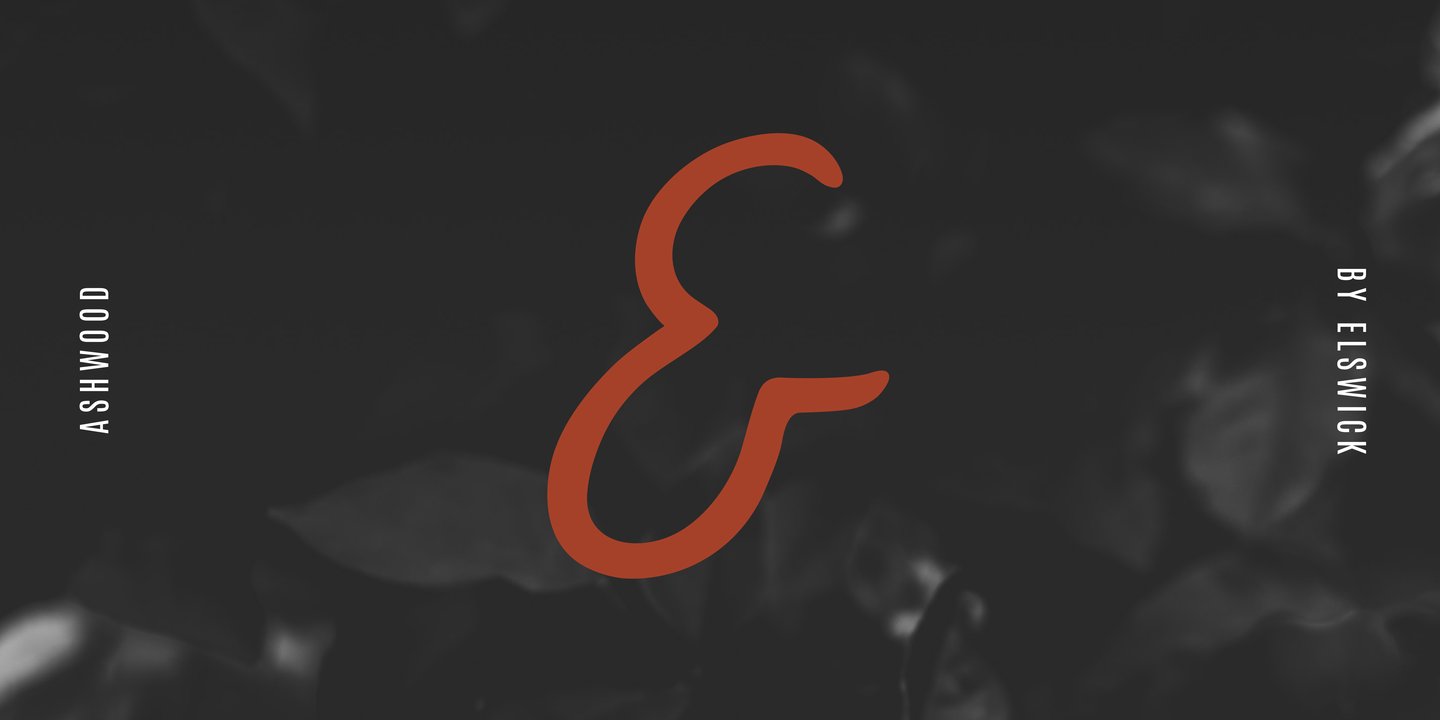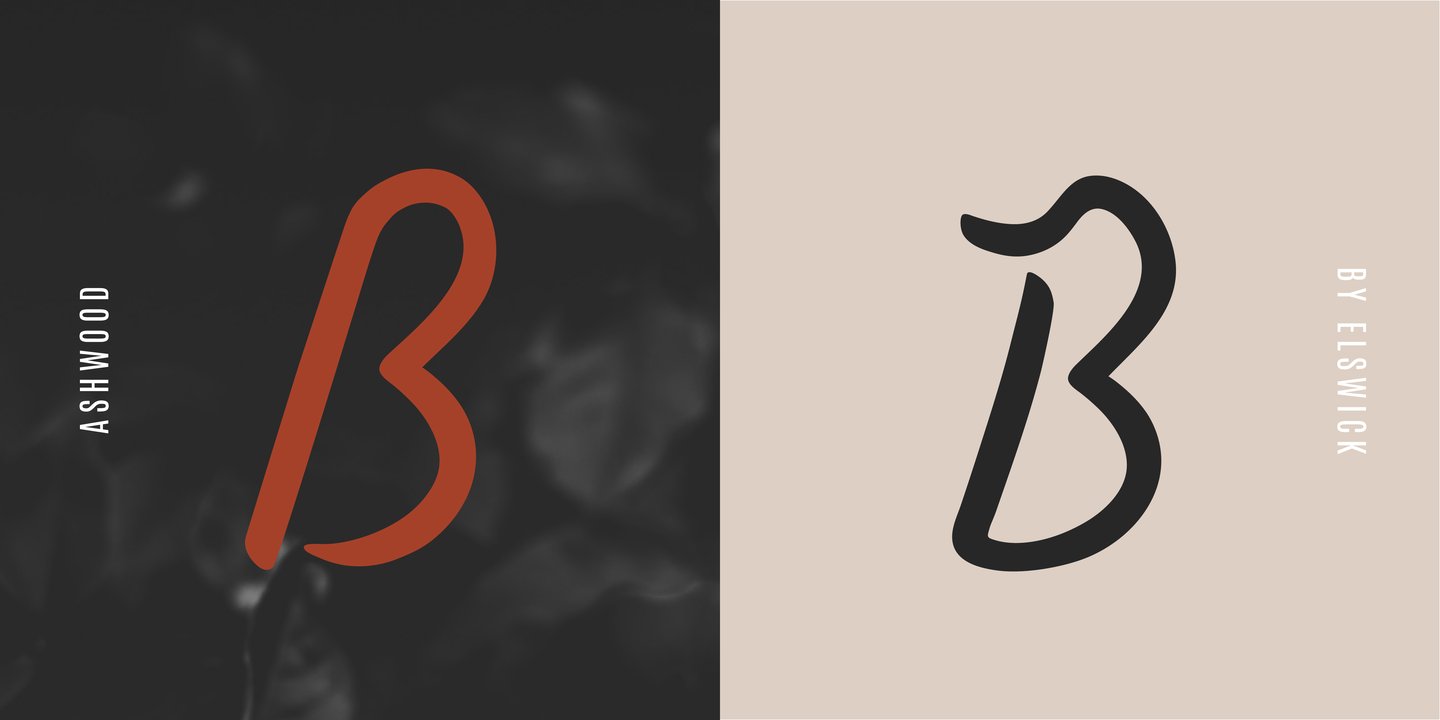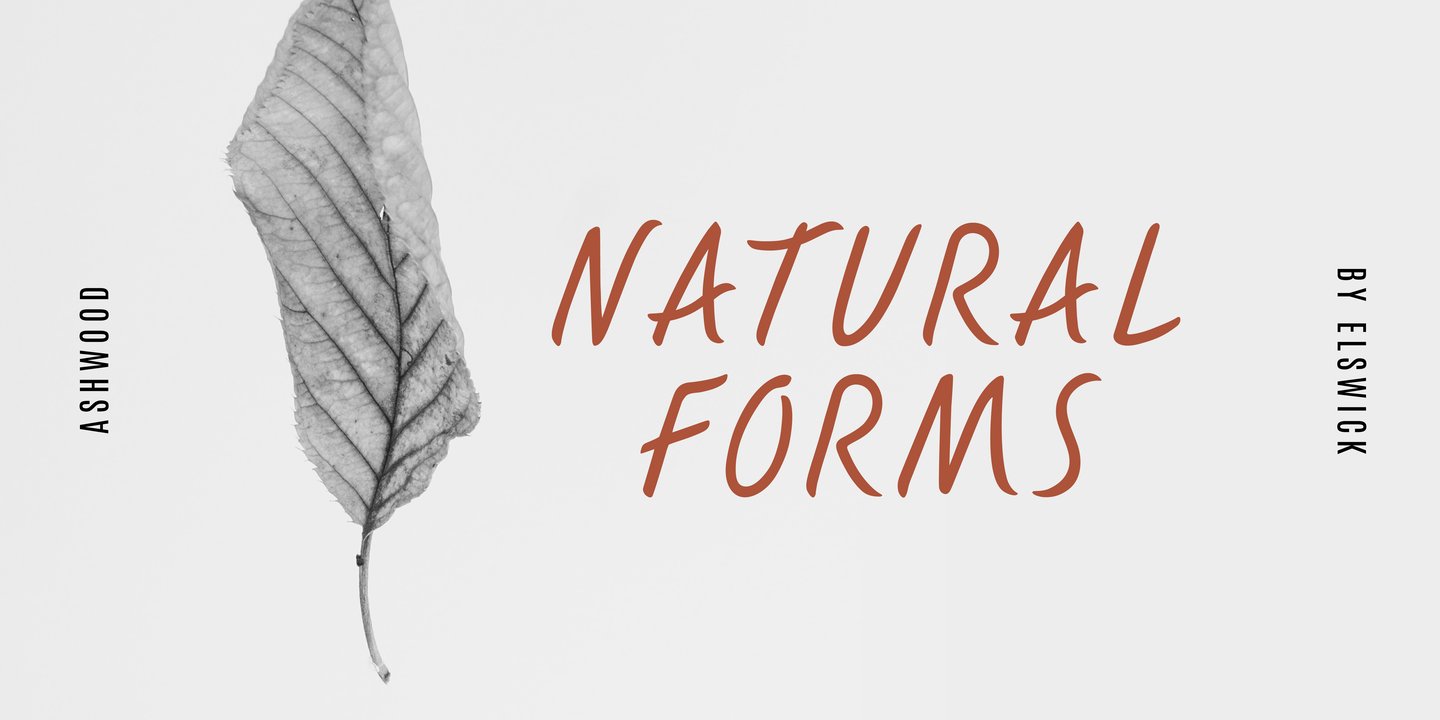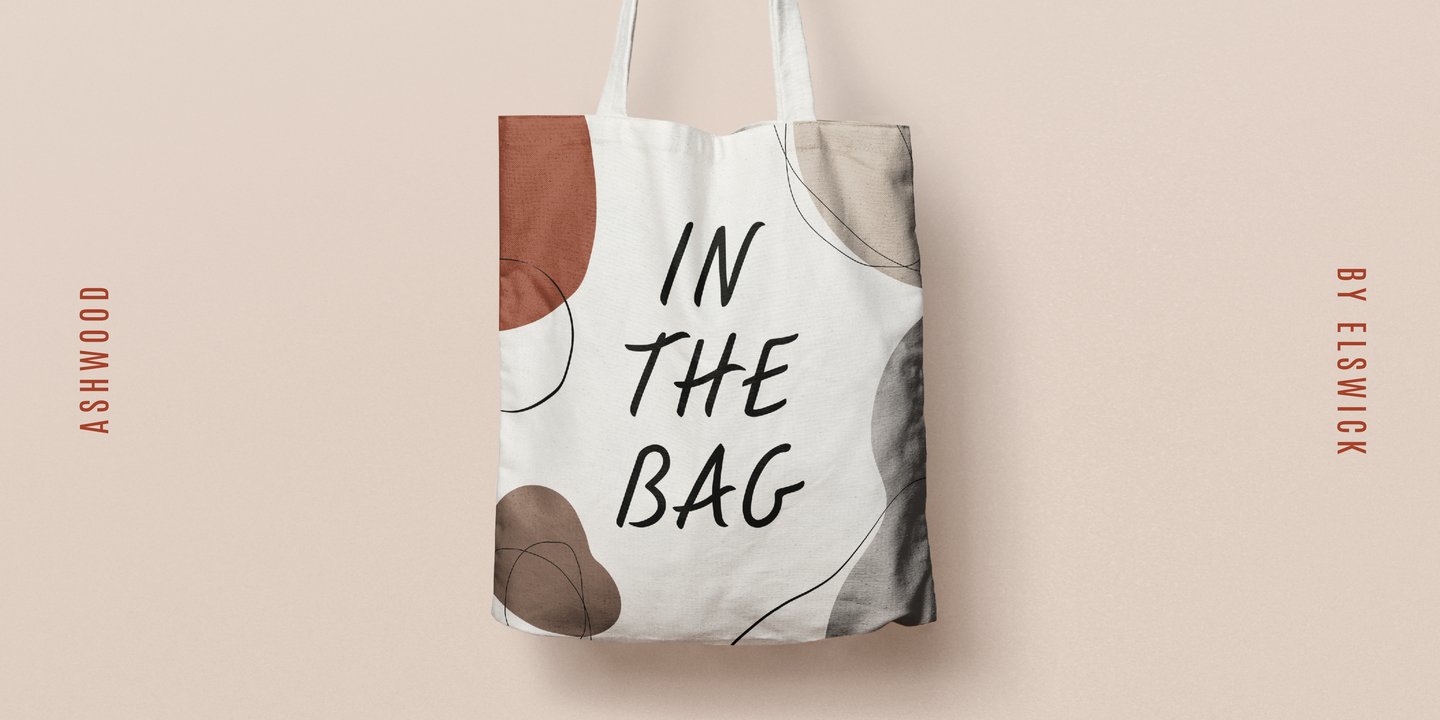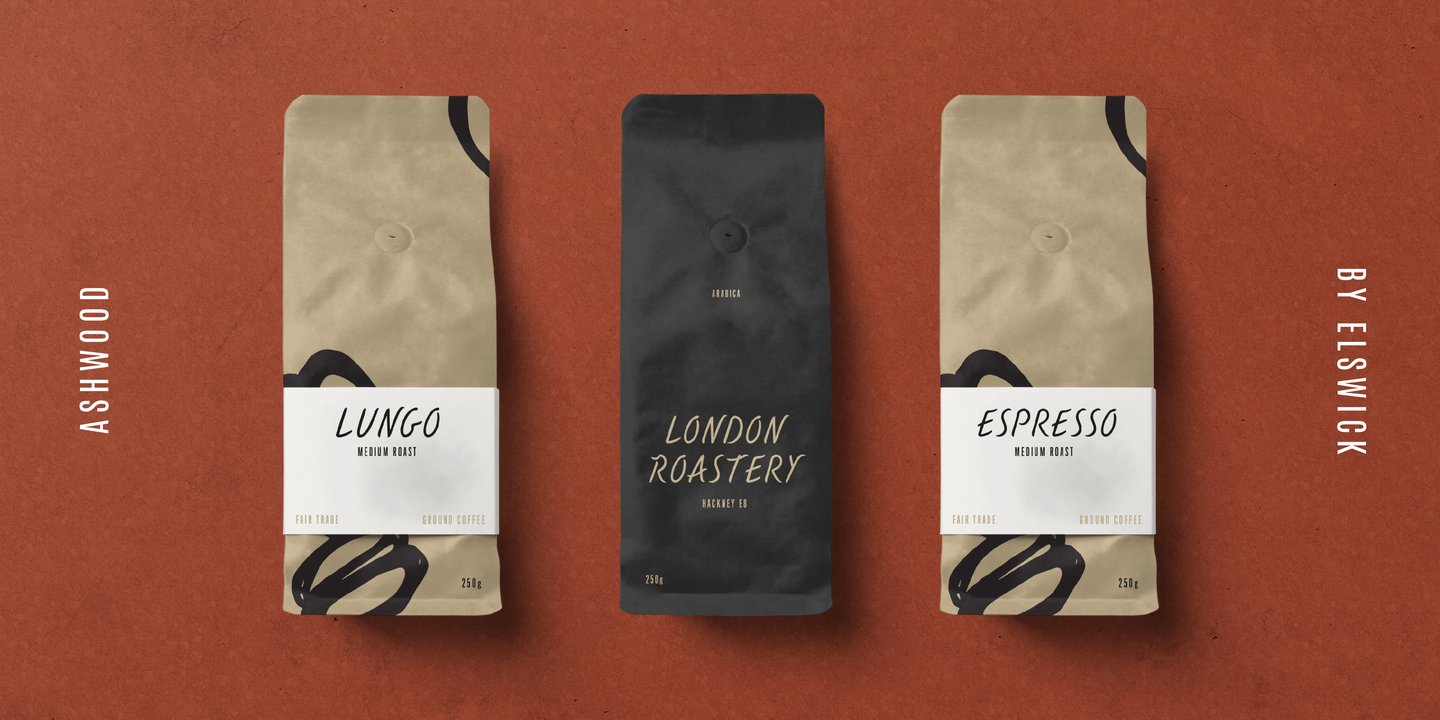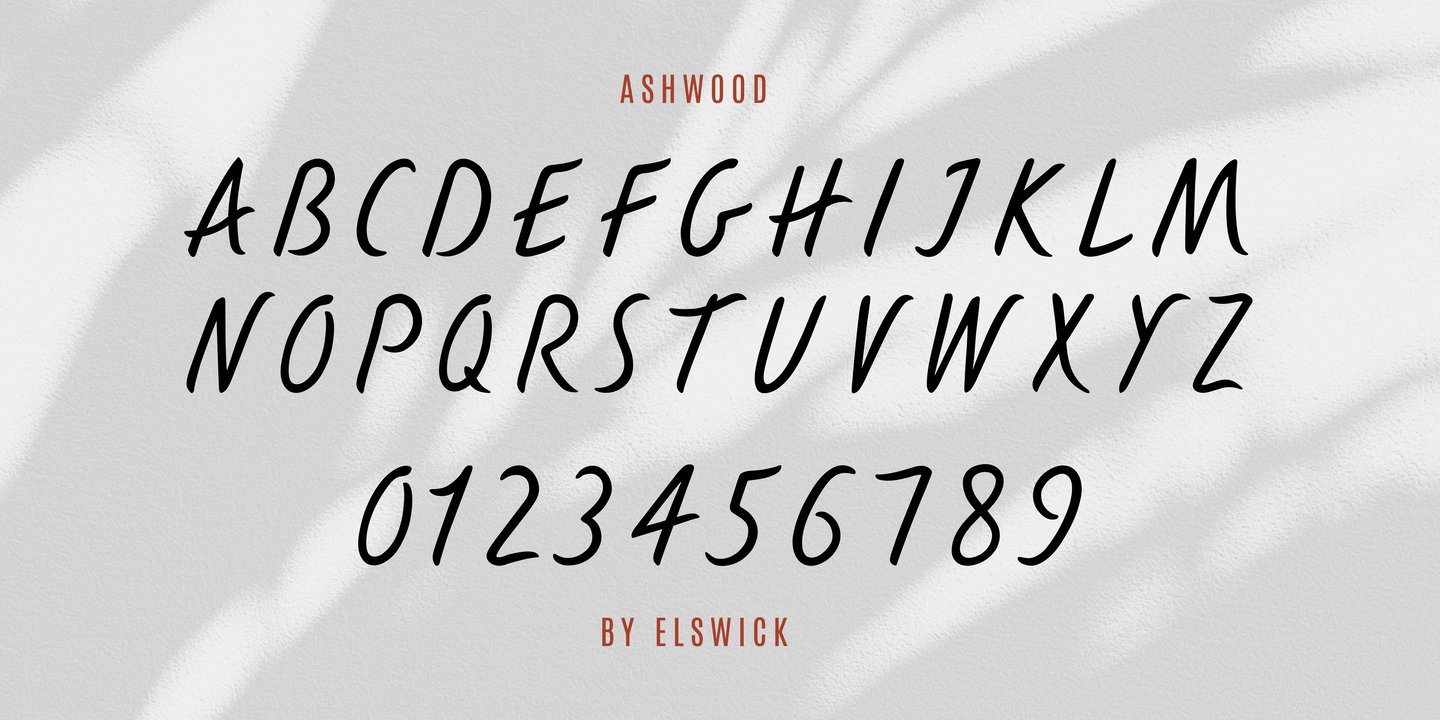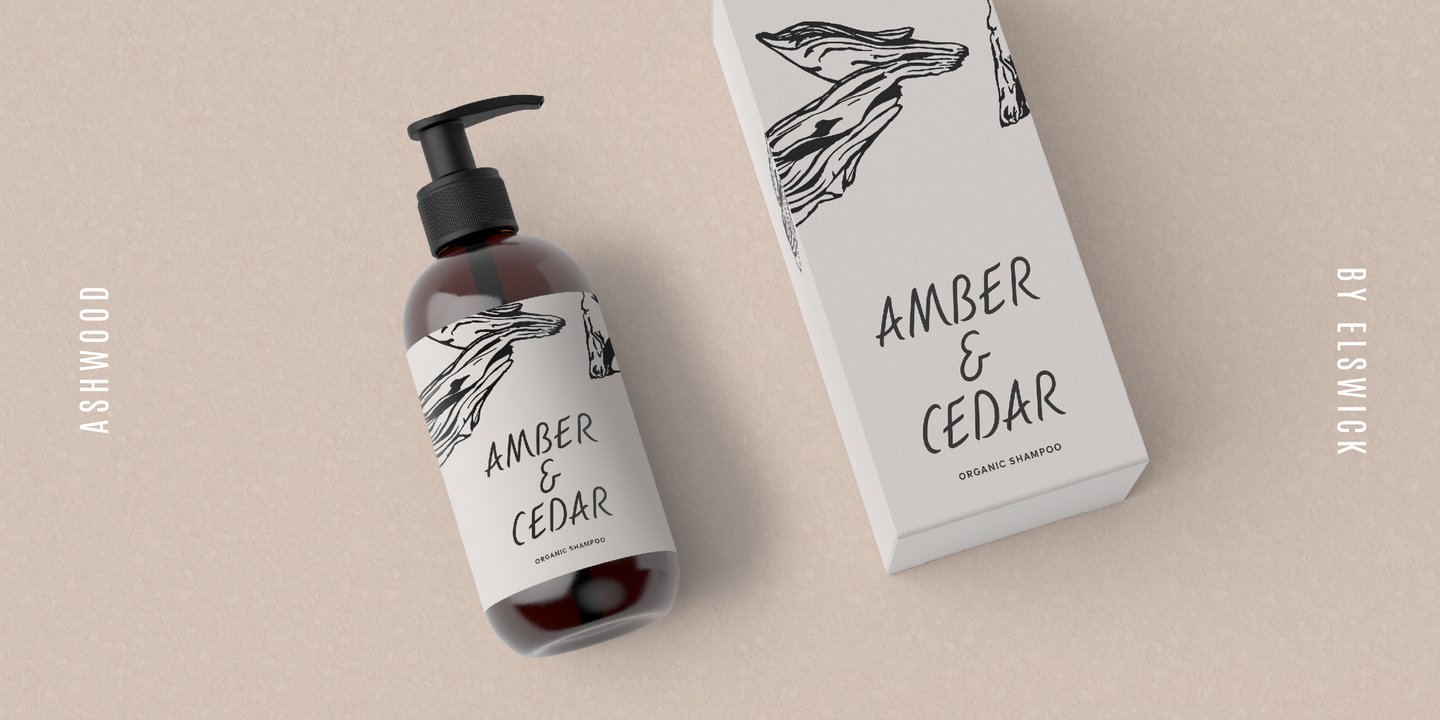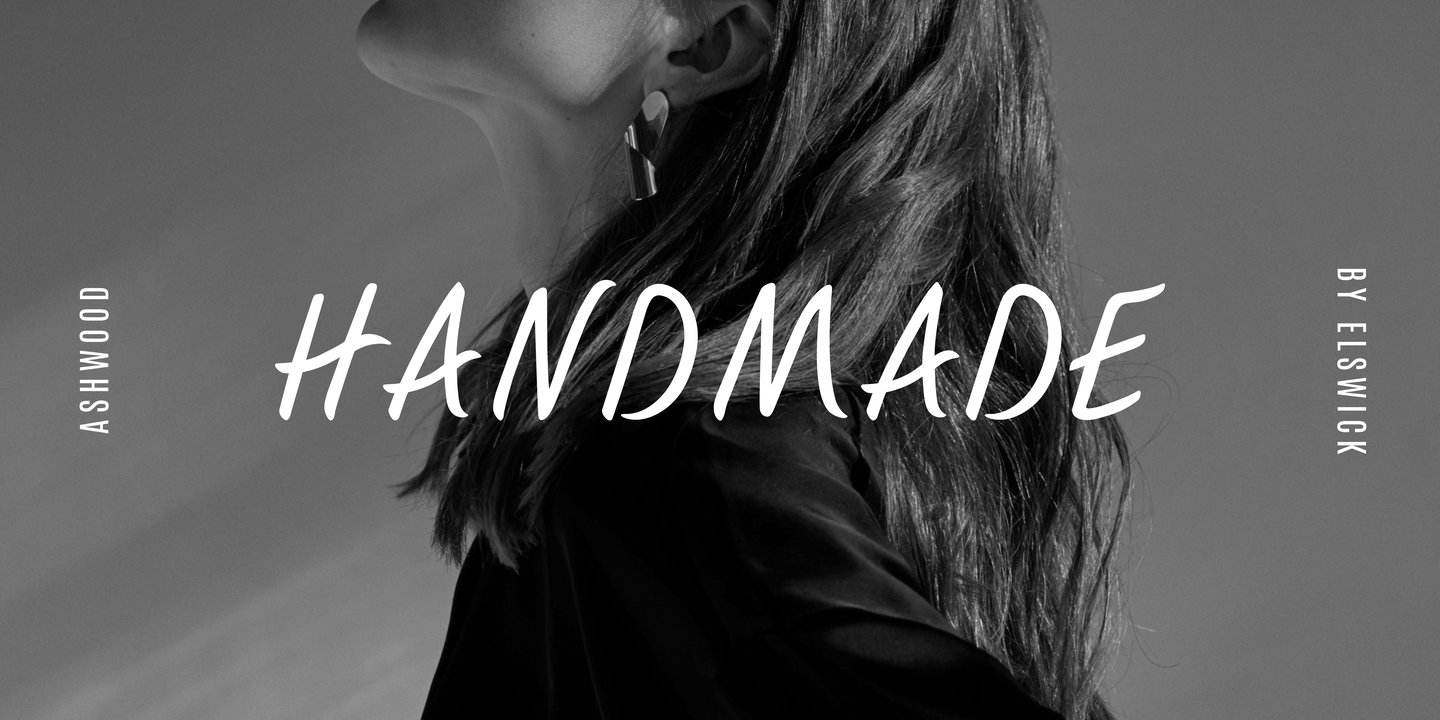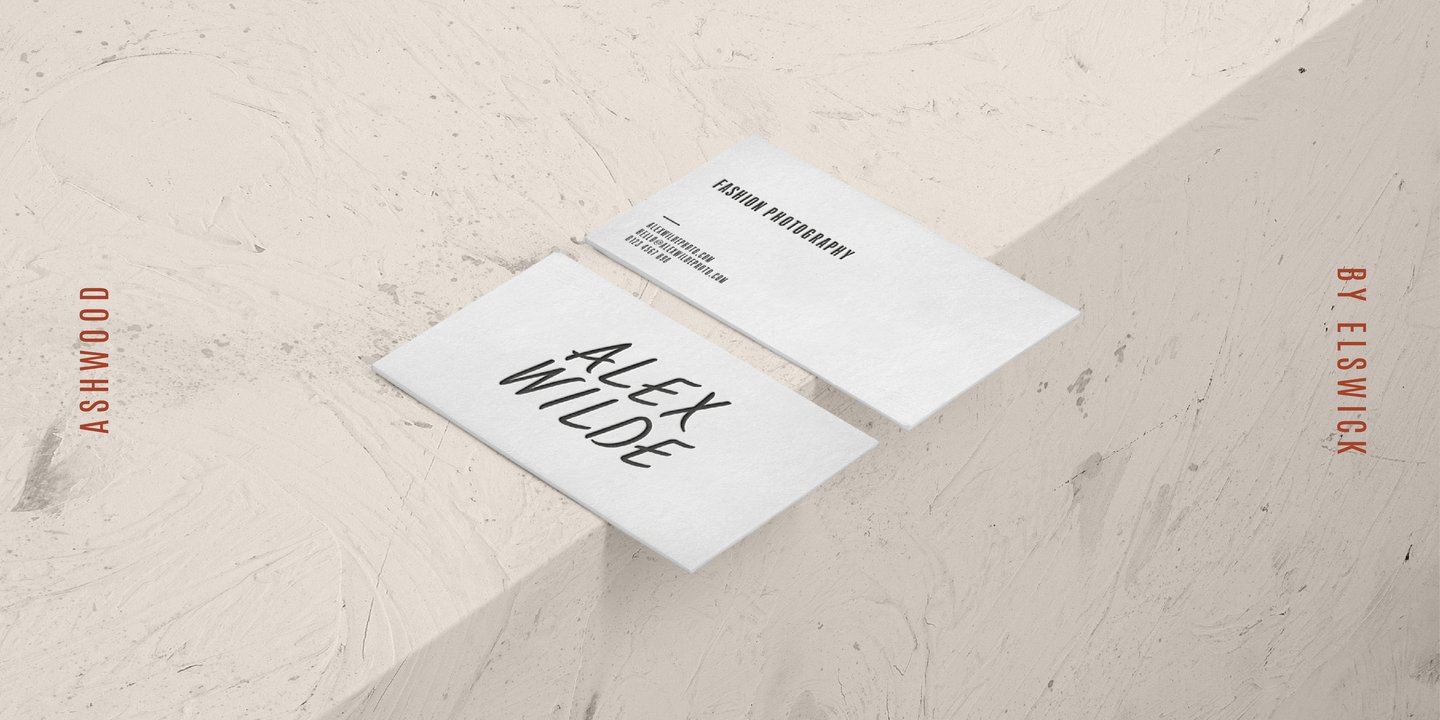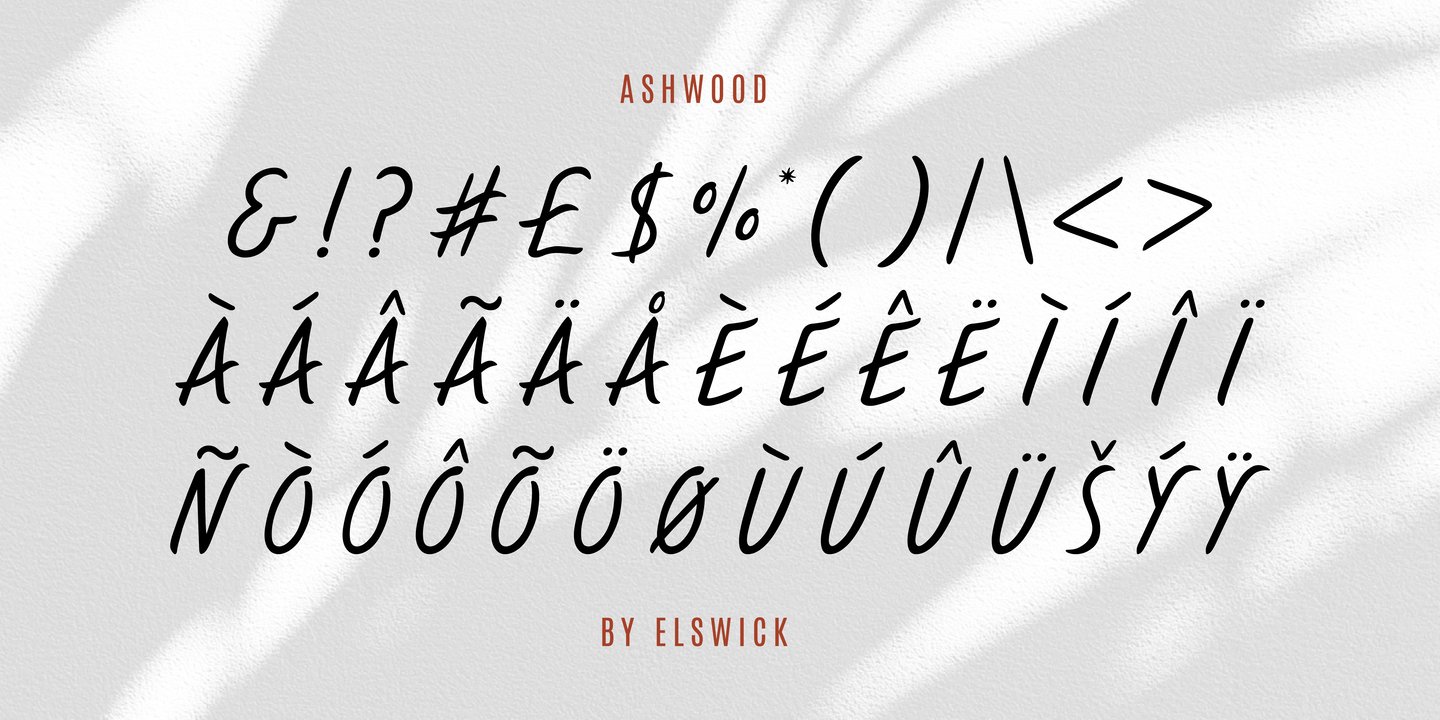
Ashwood is a contemporary, premium and sophisticated take on hand lettering. Its carefully crafted unique character has a soft edginess and looks great across fashion, branding, packaging, website headers, album art, magazines, advertising campaigns and social media.
This typeface includes multilingual support and features a range of contextual ligatures.